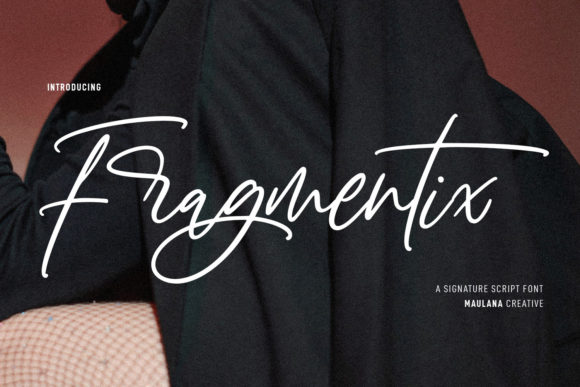
About Fragmentix Font
Fragmentix is a superb handwritten font that adds a touch of elegance and uniqueness to your projects with its elegant and curvy lines. The font is well-suited for a variety of applications, including product packaging, branding projects, magazine covers, social media, weddings, and more. With its distinctive design, Fragmentix stands out as a stylish and eye-catching choice for conveying a sense of sophistication.
In product packaging, Fragmentix’s elegant and curvy lines contribute to a contemporary and visually appealing look. The handwritten font can enhance the overall aesthetic of the packaging, creating a distinctive and memorable design that captures attention.
For branding projects, Fragmentix’s superb handwritten style can be used to create logos, headlines, or other elements that convey a sense of uniqueness and style. The font’s elegant lines add a touch of sophistication to the visual identity, making it stand out with grace.
In magazine covers and social media graphics, Fragmentix’s distinctive and curvy design provides a modern and stylish typography choice. Whether used for headlines, captions, or quotes, the font adds a touch of elegance to your visual content.
For wedding-related designs or any project that requires a stylish and handwritten touch, Fragmentix can be applied to invitations, stationery, or other elements, adding a sophisticated and personalized feel.
Whether expressing words against a background or creating a stylish and eye-catching look for various projects, Fragmentix’s superb handwritten font offers a visually pleasing and unique option.
In summary, Fragmentix is more than just a font; it’s a superb handwritten design tool that enhances the visual appeal of your projects. Whether applied to product packaging, branding, magazine covers, social media, weddings, or other design contexts, Fragmentix brings an elegant and distinctive touch to your typography.